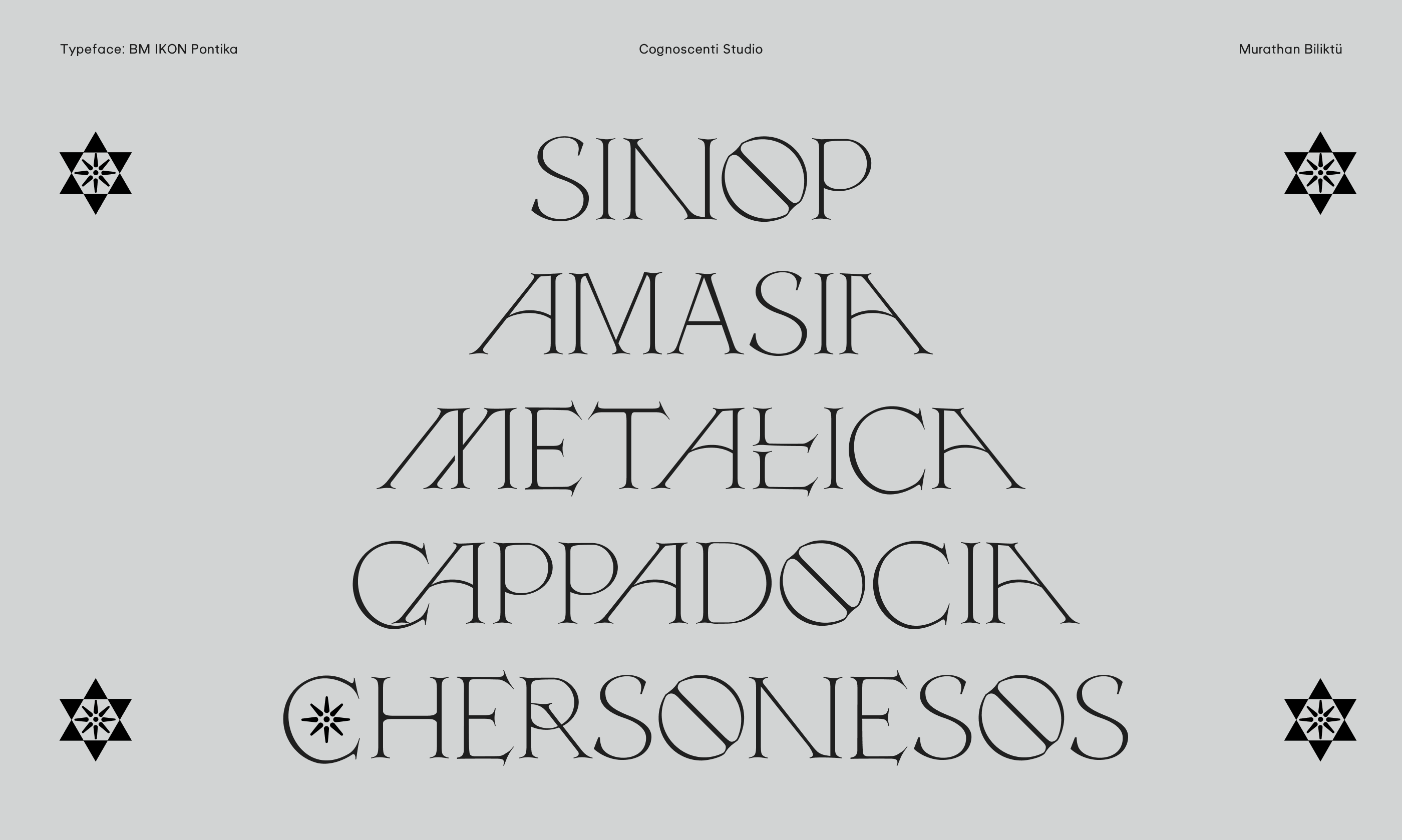
BM Ikon
Pontika is taking the classic BM Ikon typeface from its Aegean and the Mediterranean origin to the North, to Pontus. The inspiring winter weather in the Black Sea Region made me want to create a new iteration based on BM Ikon. The harsh weather, the vista of green tablelands, the moist and foggy skies. Most importantly the historical fabric of the region was so rich that I had to try to revive it via experimental Georgian, Armenian and Greek scripts. I hope you like playing around with Pontika.
Family Name: BM Ikon
Available Styles: Regular, Sans, Pontika
Script: Armenian • Georgian • Greek • Latin